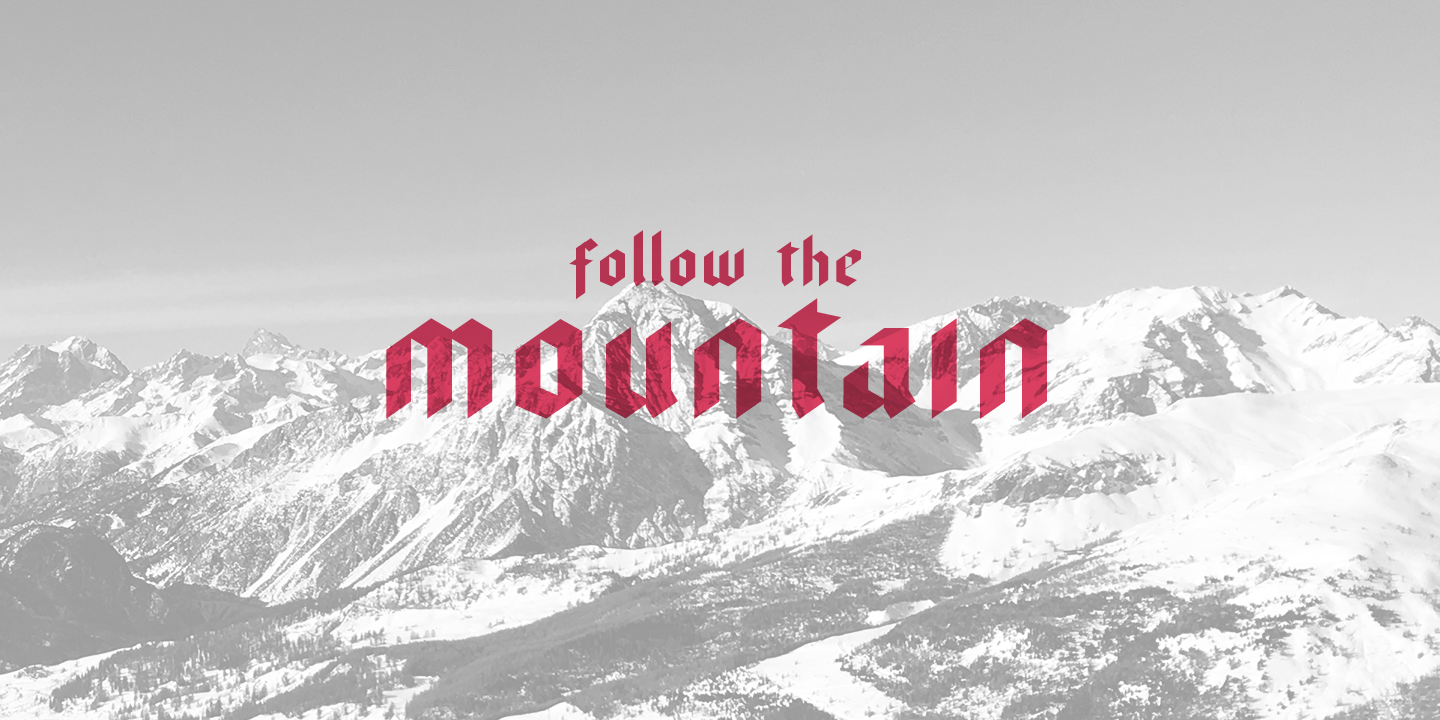
Beloid Gothic Font is perfect for dark fantasy book covers, gothic architecture signage, mysterious horror movie titles, atmospheric metal band logos, medieval-themed designs, haunting Halloween decorations, gothic fashion branding, supernatural event promotions, dark art galleries, mystical occult publications, dramatic theatrical posters, and brooding alternative lifestyle merchandise.
What makes Beloid Gothic Font so exciting is its haunting architectural beauty and mysterious gothic elegance that perfectly captures the essence of medieval craftsmanship and dark romantic aesthetics. This captivating typeface features dramatic pointed arches, intricate gothic details, and shadowy letterforms that evoke feelings of mystery, antiquity, and supernatural allure, making it ideal for projects that need to communicate dark sophistication, historical depth, and the mesmerizing beauty of gothic architectural traditions.
The Beloid Gothic Font family typically includes regular and ornate variations with decorative gothic elements, medieval ligatures, and architectural flourishes that enhance the mysterious aesthetic while maintaining excellent readability for atmospheric design applications.
Whether you're designing materials for gothic entertainment or creating branding for alternative lifestyle products, Beloid Gothic Font Free Download provides the perfect typography solution for projects requiring dark elegance and medieval sophistication. This versatile font masterfully combines architectural precision with mystical atmosphere, making it an invaluable resource for designers working on projects that celebrate gothic heritage, dark romanticism, and the timeless appeal of mysterious, shadow-draped design traditions.